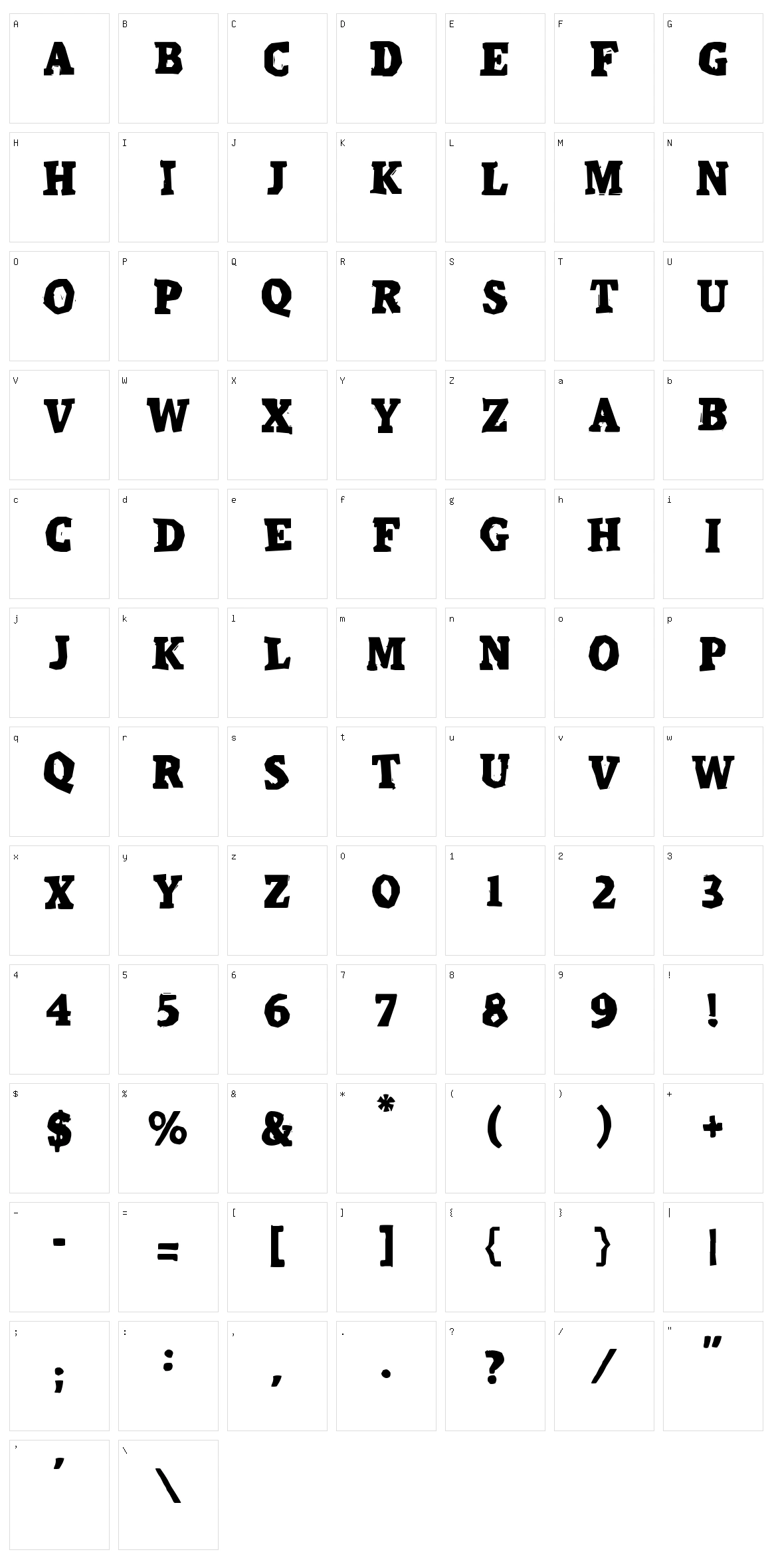
The free font Calango Revi is carefully designed by William Jeovah de Medeiros, showcasing a thoughtful balance of creativity and usability and falls under the Distorted font style. When you download the ZIP file, it contains only 43.85 KB of font files, making it lightweight and quick to download. Please review the license details below to understand permitted usage and distribution rights. If license information is not available, we recommend using this font for personal projects only or contacting the author directly for commercial usage permissions.